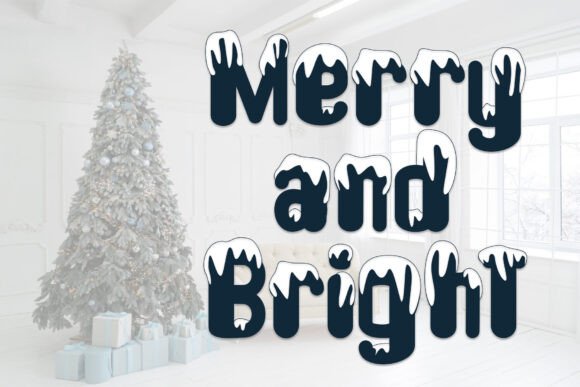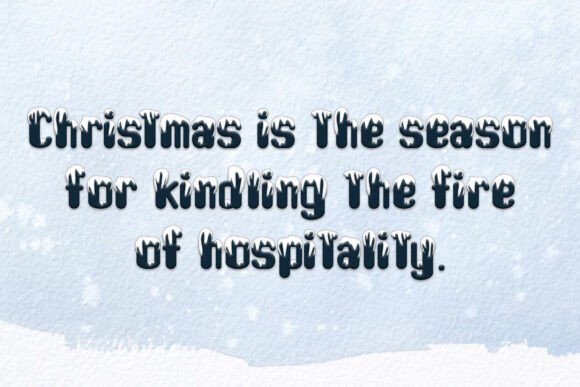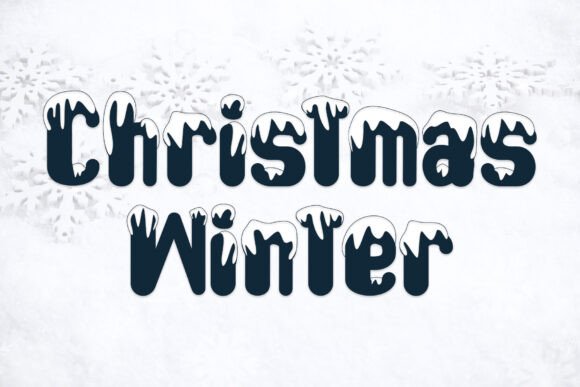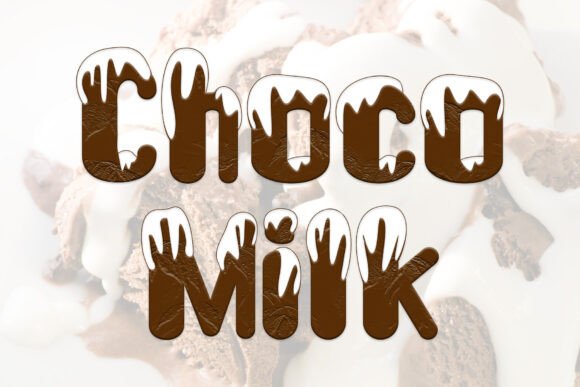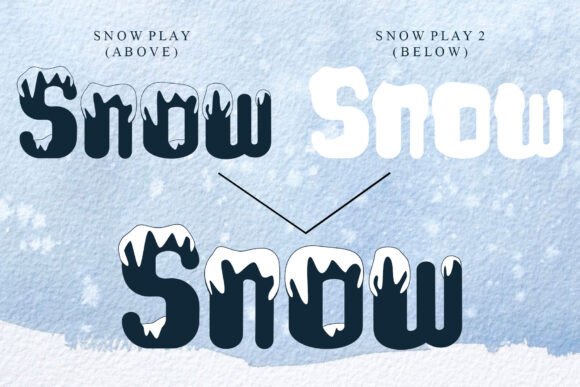
Introduction to Snow Play Font
“Snow Play” is a magnificent snow-inspired font.
Designed to enhance your festive season, “Snow Play” is the ideal font choice for your Christmas-themed projects Its frosted characteristics embody the beauty and exuberance of winter, making it a must-have font to turn your Christmas ideas into an exquisite reality.
Key Features of Snow Play Font
Why Choose Snow Play Font?
Snow Play Font offers exceptional quality and versatility, making it a valuable addition to your design toolkit. Whether you’re creating for personal projects or commercial use, Snow Play Font delivers professional results.